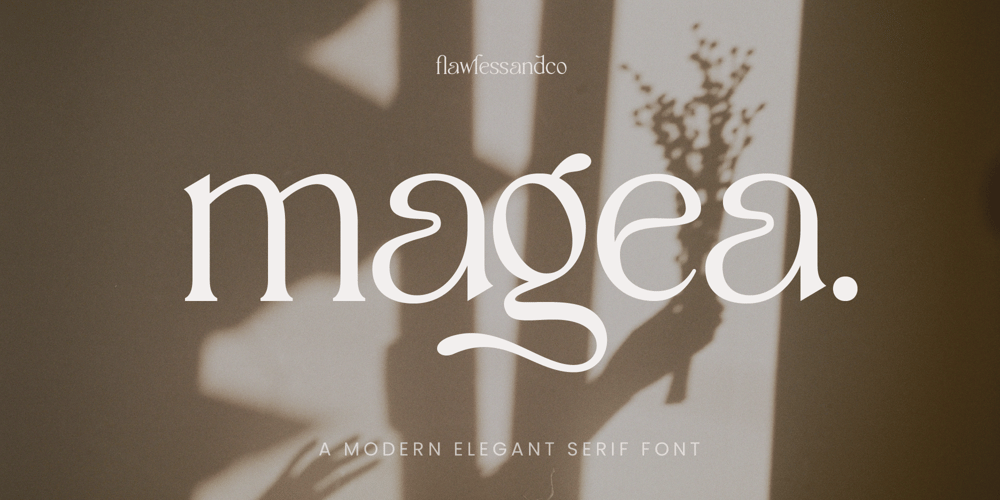
Magea Font Family was designed by Achmad Yani and published by Flawlessandco. Magea contains 1 styles and family package options. Magea is a Modern Serif Typeface with Elegant vibes in each character with some alternate.An Original typeface that suitable for any graphic designs such as branding materials, t-shirt, print, business cards, logo, poster, t-shirt, photography, quotes .etcThis font support for some multilingual. Modern Sweet Retro that contains uppercase A-Z and lowercase a-z, alternate character, numbers 0-9, and some punctuation.If you need help, just write me! Thanks so much for checking out my shop!